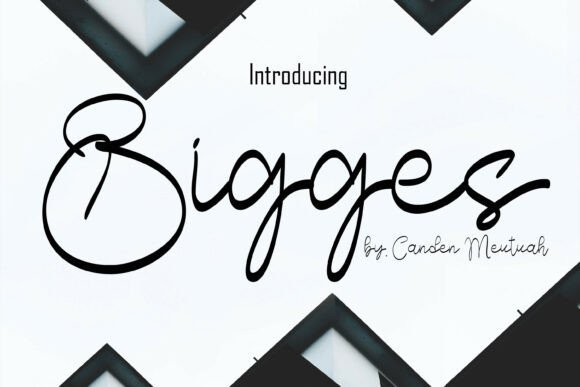
Discover the Unique Charm of Bigges Font
Have you ever sat in front of your computer, staring at a blank canvas, trying to find the perfect font to bring your design to life? That’s a moment we’ve all been in, and it’s frustrating. But what if I told you there’s a font that can make all the difference? Bigges Font is a beautiful and eye-catching typeface designed with a soft, unique touch that will give your designs a special character.
With its distinctive strokes and versatility, Bigges Font is perfect for design projects, crafts, and other creative works. Whether you’re a professional designer or a hobbyist, this natural font style is ideal for a wide range of products. Its compatibility with various applications, including Windows and open-source platforms, makes it a valuable addition to any creative toolkit.
- Unique Characteristics: The font features a unique, hand-drawn style with bold lines and rounded edges, making it ideal for creating eye-catching headlines and titles.
Bigges Font Review
Overall, I think Bigges Font is a decent addition to any designer’s toolkit. There are some things that really shine ✨, but also some areas where it falls short ⚠️.
- ✨ Unique style: Bigges Font has a distinct, modern aesthetic that’s sure to stand out in your designs.
- ✨ High-resolution: The font looks crisp and clear at any resolution, making it perfect for print or digital use.
- ✨ Versatile: Bigges Font comes in a range of weights and styles, making it easy to find the perfect fit for your project.
- ⚠️ Limited language support: Bigges Font only includes characters for English and a few other languages, which may limit its usability for designers working with other languages.
- ⚠️ Limited customizability: While Bigges Font has a range of weights and styles, it’s not possible to create custom variations or tweak the font to fit your specific needs.
Overall, I’d say Bigges Font is a solid choice for designers who want a unique, high-quality font for their projects. However, it may not be the best fit for designers who need to work with multiple languages or require a high degree of customizability.
Bigges Font is ideal for creating eye-catching headlines and titles in Canva.
Bigges Font is great for creating custom logos, graphics, and typography in Adobe Photoshop and Illustrator.
Bigges Font is ideal for creating professional-looking presentations and documents in PowerPoint and Word.
Bigges Font is a versatile font that can be used in a variety of contexts. Here are some tips for getting the most out of it:
- Use Bigges Font for headings and titles to create visual hierarchy.
- Pair Bigges Font with other fonts to create a unique and visually appealing typography.
- Experiment with different font sizes and colors to create a custom look.